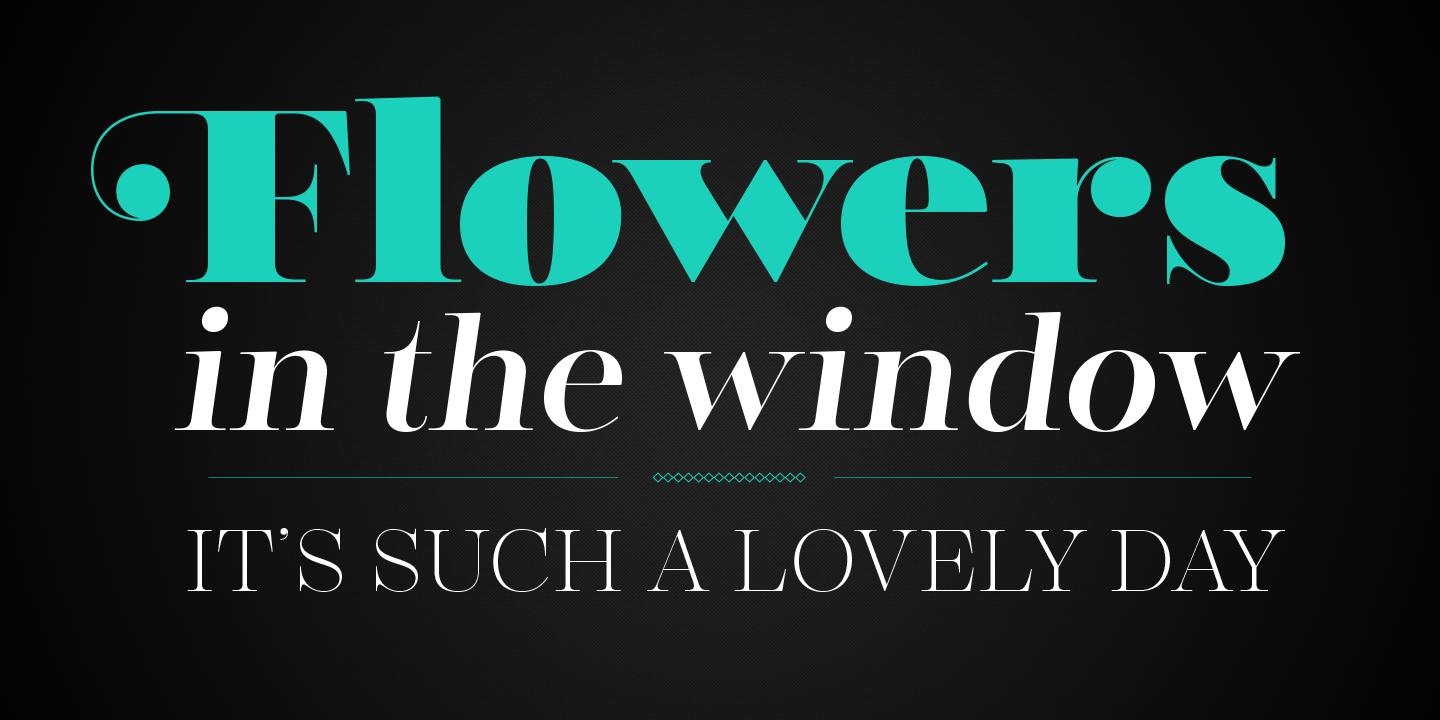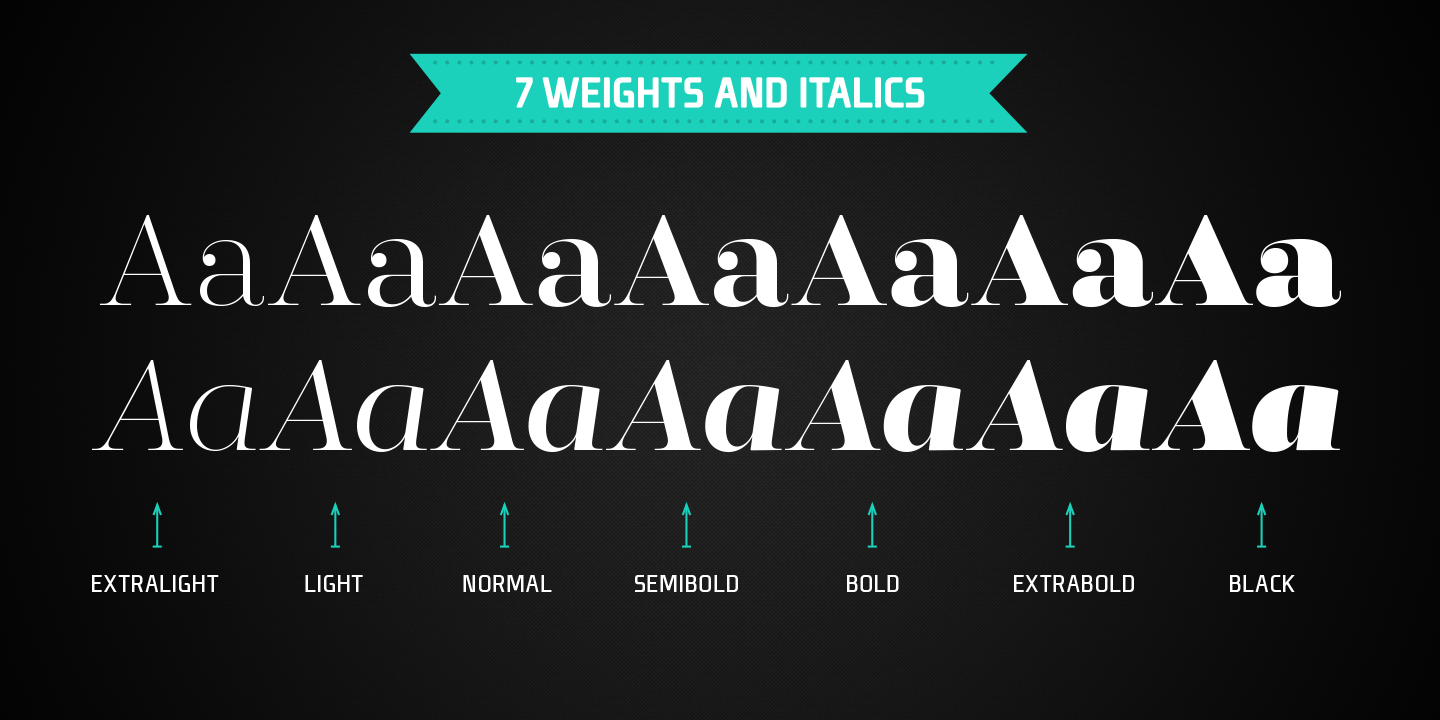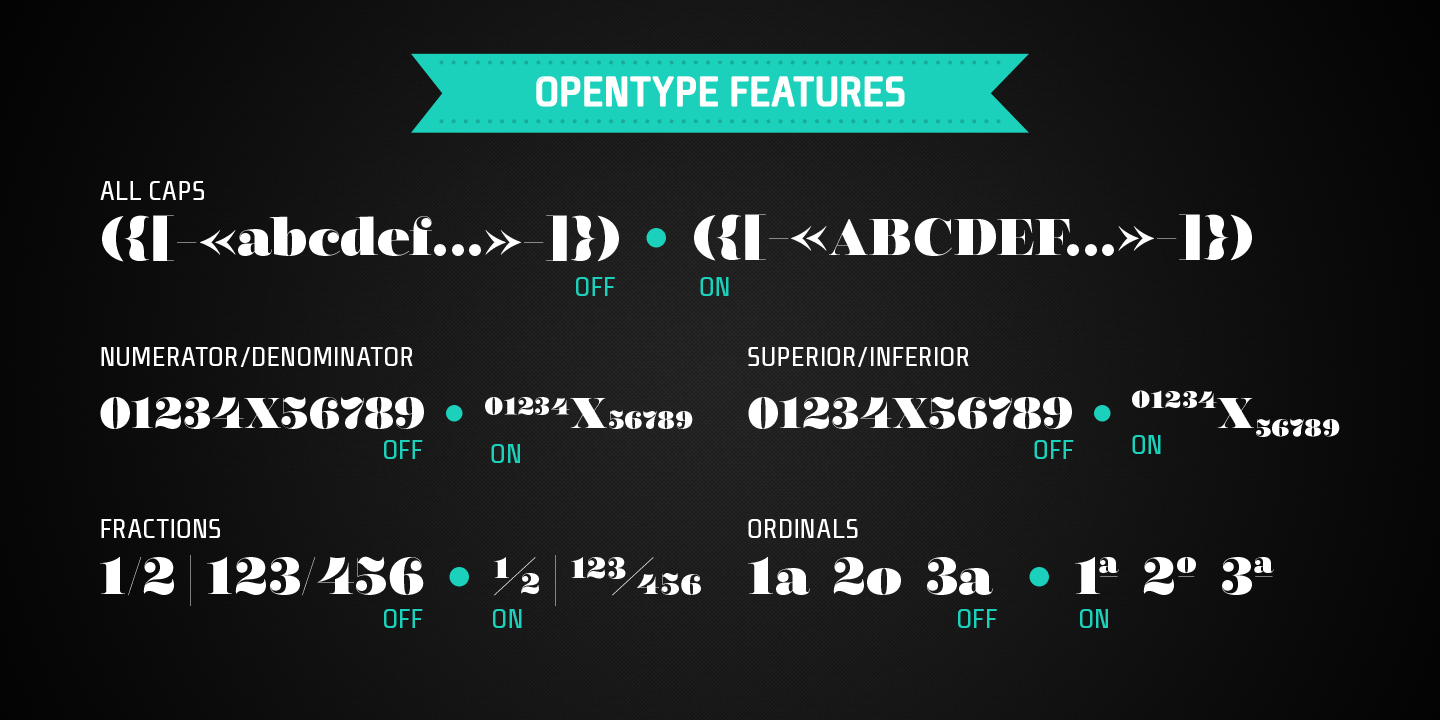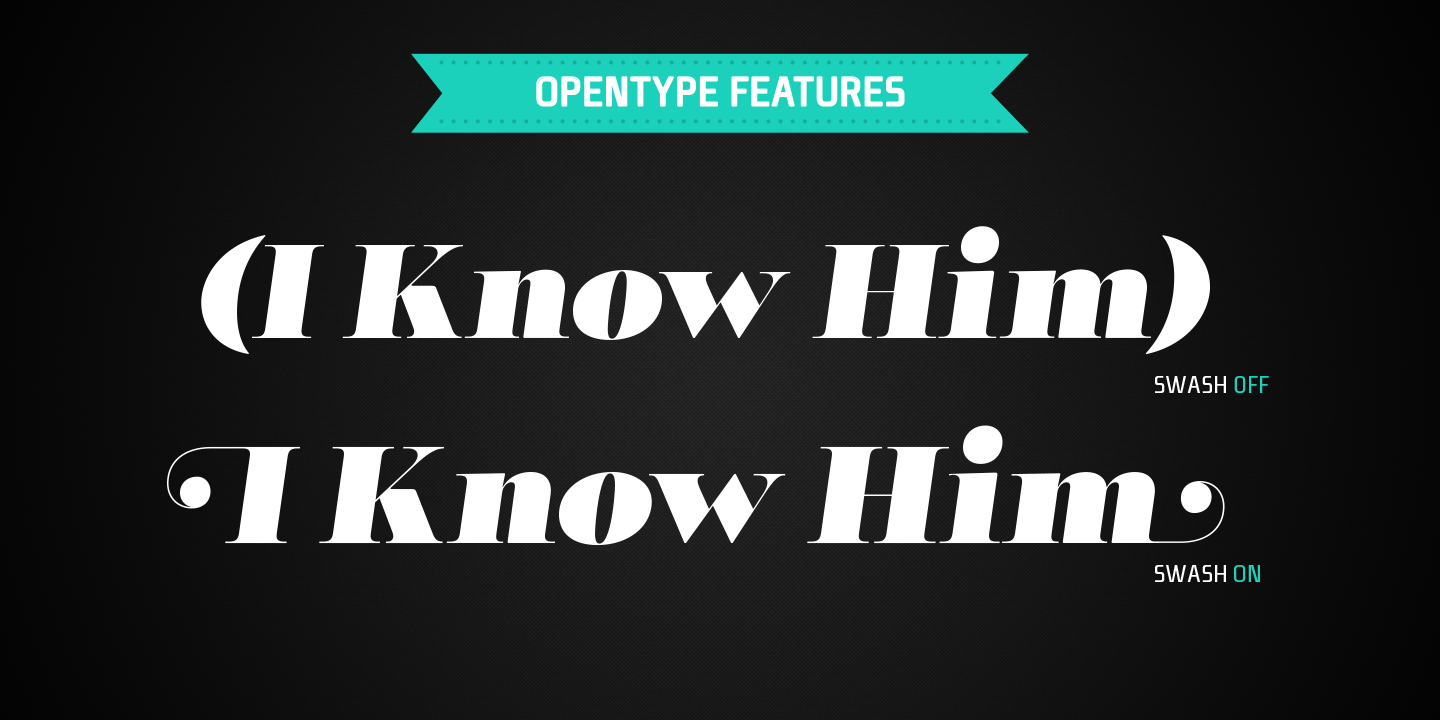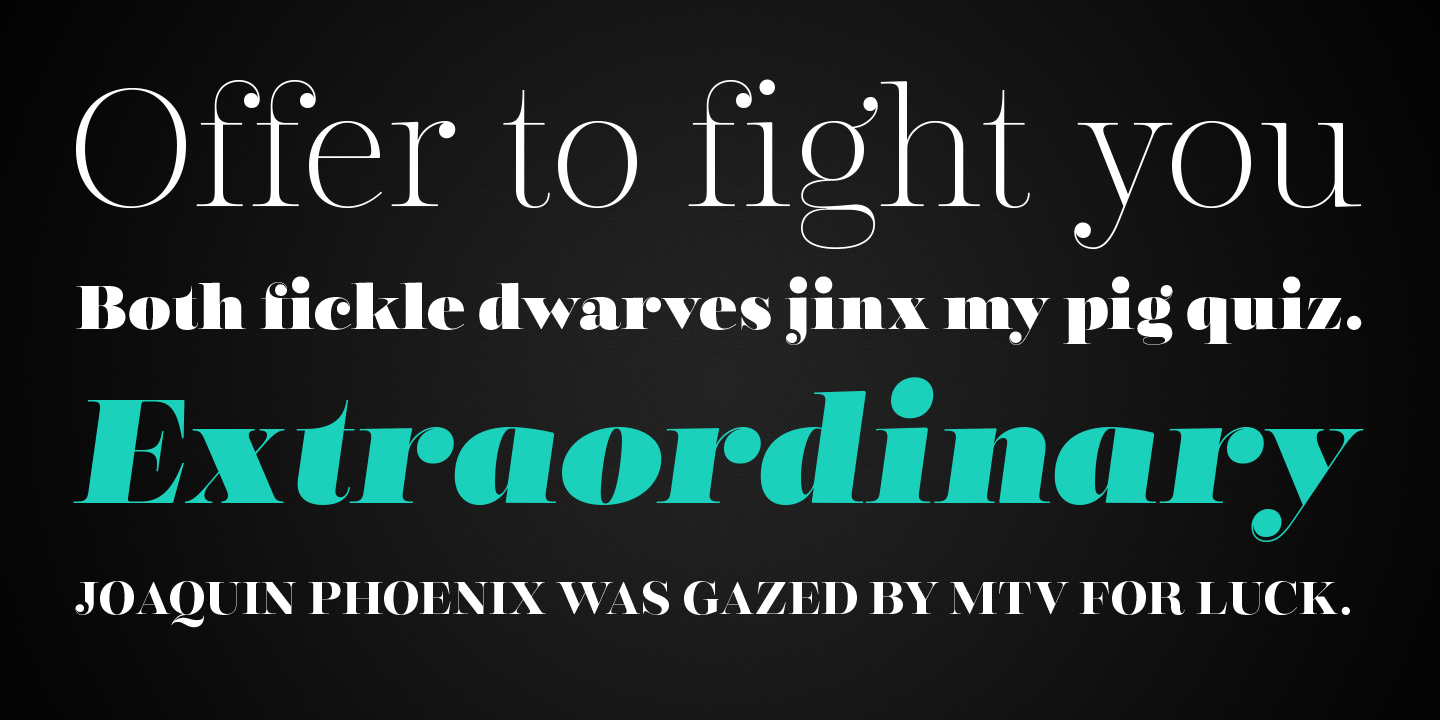
Encorpada Classic Family (14 fonts)
After that instant success, in 2012, dooType brought to us Encorpada PRO. Encorpada Classic retains the main look and feel of his predecessors, but is designed with more functional considerations. With 14 styles, Encorpada Classic is a fine choice.